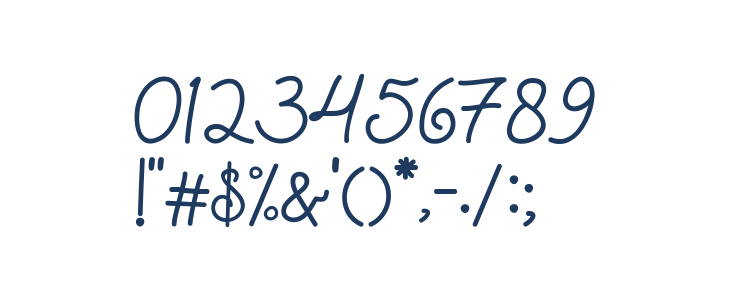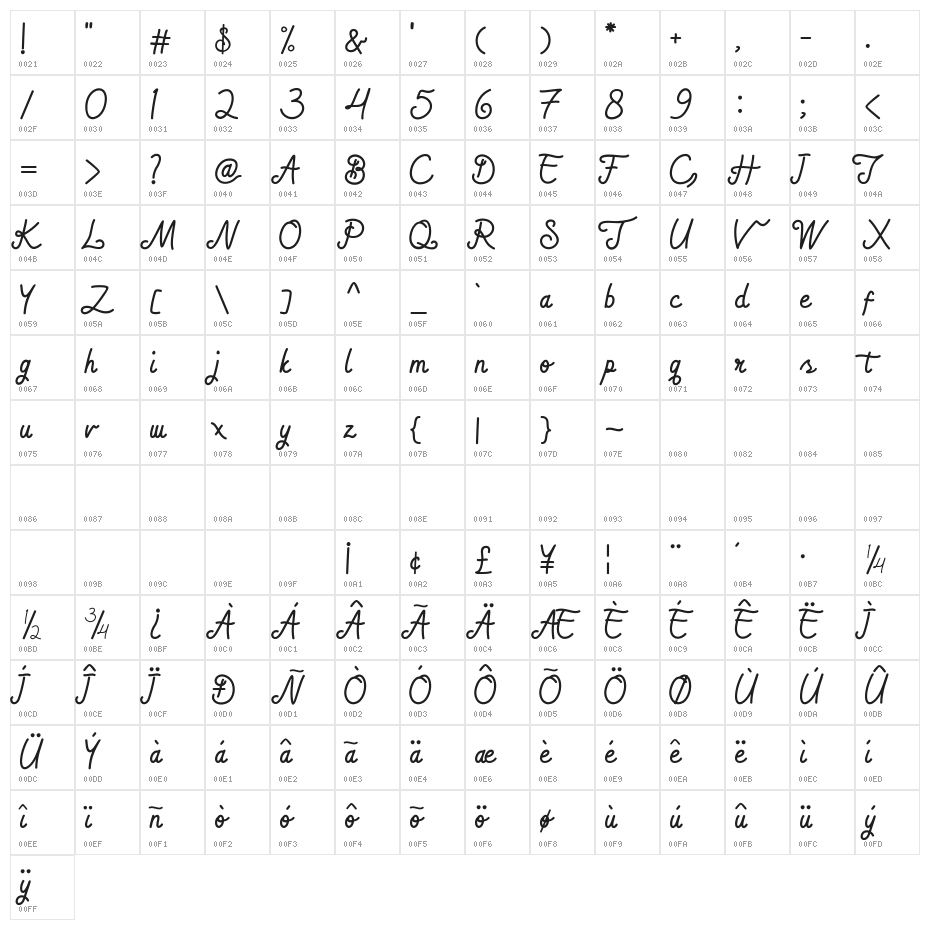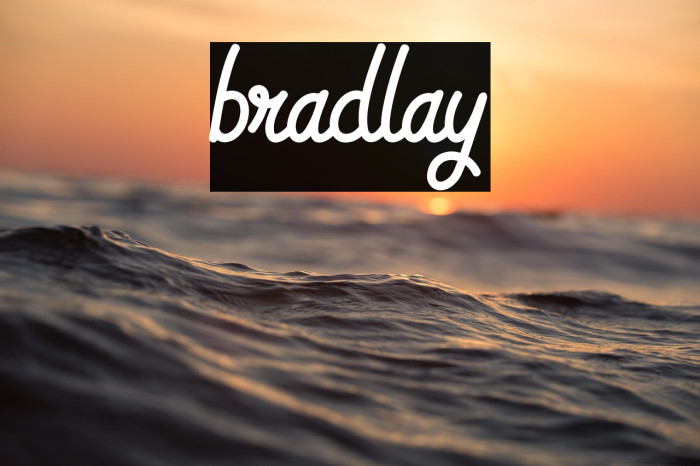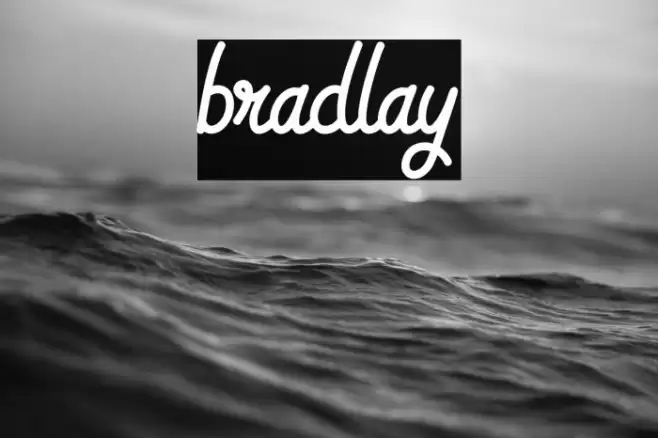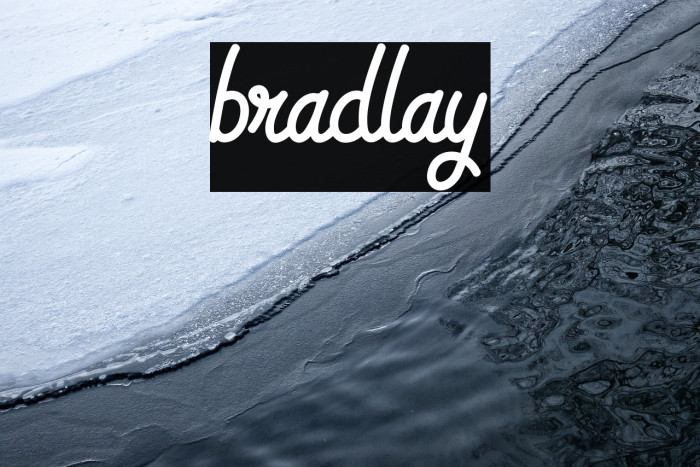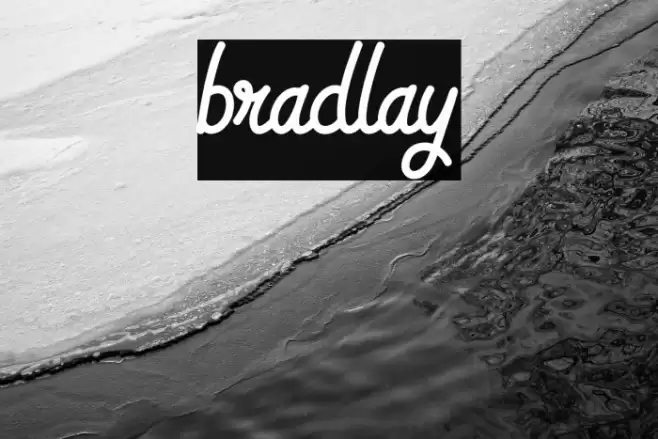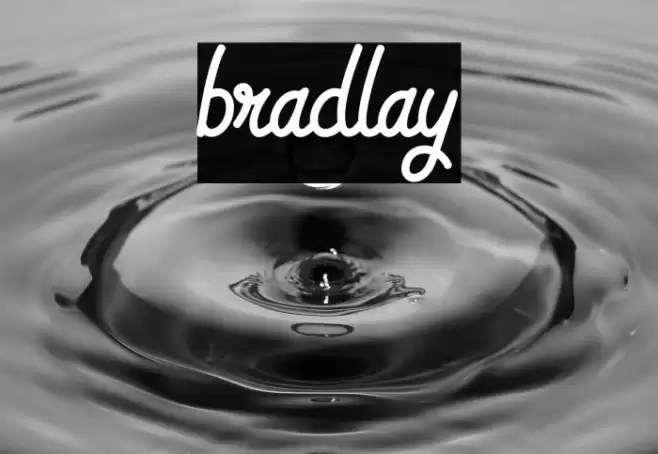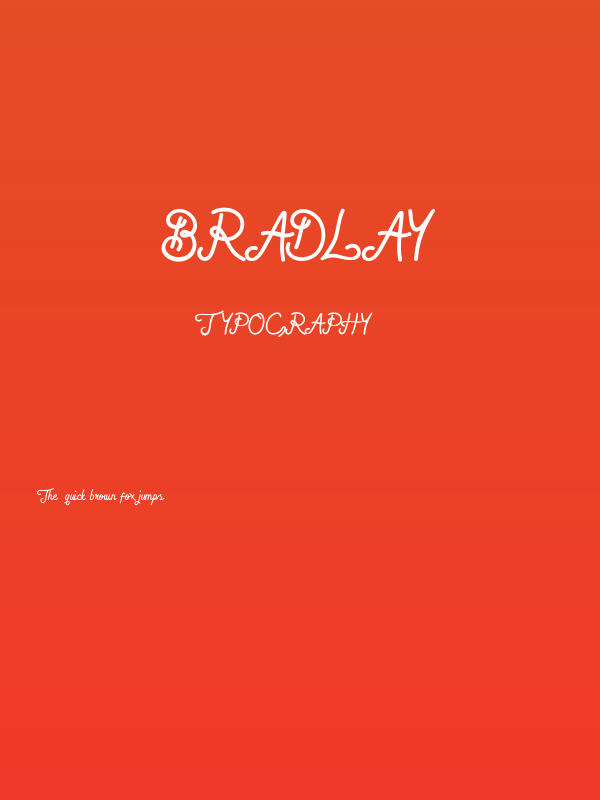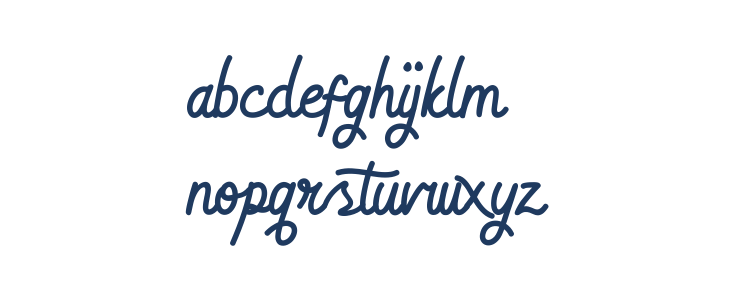
bradlay Font
bradlay Description
This font features a playful and flowing script style, characterized by its smooth, connected strokes and elegant curves. The uppercase letters are slightly more formal, with a consistent slant and rounded edges, while the lowercase letters maintain a casual, handwritten feel. The numerals are clear and legible, with a slight tilt that matches the overall style. Special characters are thoughtfully designed to complement the alphabet, ensuring a cohesive look. The font's overall appearance is both approachable and stylish, making it suitable for a variety of creative applications.